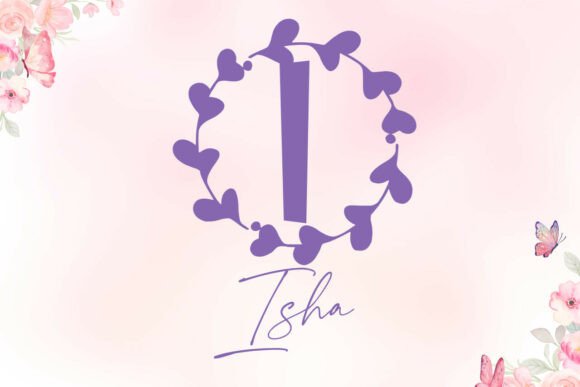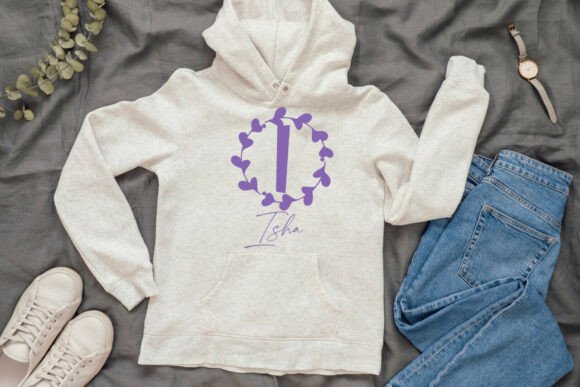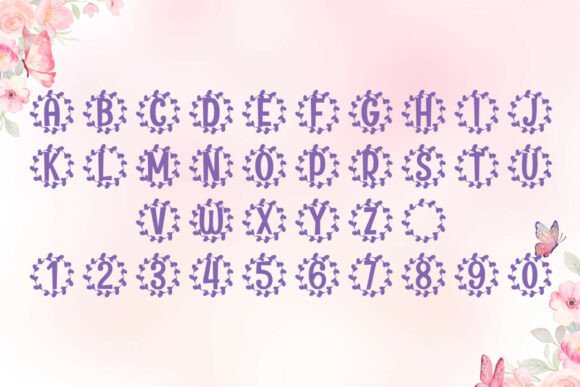
Introducing Fleuric Monogram Font: Elevate Your Designs with Elegant Botanical Marks
In the world of design, a monogram font can make all the difference in creating a lasting impression. Fleuric Monogram Font is a stunning addition to any designer’s toolkit, turning initials into beautiful, graceful botanical marks. With its poised stems and curves, open spacing, and elegant aesthetic, Fleuric is perfect for wedding suites, boutique logos, keepsake gifts, and premium packaging.
The Beauty of Fleuric Monogram Font
Fleuric’s unique design combines the sophistication of botanical elements with the simplicity of monograms. The font’s stems and curves are carefully crafted to exude poise and elegance, making it ideal for designs that require a touch of refinement. The open spacing ensures that even tiny tags remain clear and legible, allowing you to use Fleuric in a variety of applications, from small jewelry cards to large venue signage.
One of the standout features of Fleuric Monogram Font is its versatility. You can use it to create a wide range of designs, including:
• Wedding suites: Add a touch of elegance to your wedding invitations, stationery, and decorations with Fleuric’s beautiful monograms.
• Boutique logos: Create a lasting impression with a custom logo that showcases your brand’s unique personality.
• Keepsake gifts: Make your gifts extra special with beautifully designed monograms that will be treasured for years to come.
• Premium packaging: Elevate your packaging with Fleuric’s sophisticated monograms, perfect for luxury brands and high-end products.
Pairing Fleuric with Other Fonts
Fleuric Monogram Font pairs beautifully with soft serifs and modern sans fonts, allowing you to create refined and polished compositions with ease. The font’s elegant aesthetic complements a wide range of typography styles, making it easy to incorporate into your existing design workflow.
Designing with Fleuric
Using Fleuric Monogram Font is incredibly easy, even for those new to design. The font shines in a variety of applications, including:
• Logos and seals: Set single, double, or triple initials for a professional and polished look.
• Laurel rings and oval borders: Frame your monograms with beautiful laurel rings or oval borders for added elegance.
• Fine rules: Add a touch of sophistication with fine rules that complement Fleuric’s elegant aesthetic.
Scalability and Versatility
Fleuric Monogram Font scales effortlessly from small jewelry cards to large venue signage, making it a versatile addition to your design toolkit. Whether you’re designing for print or digital applications, Fleuric’s smooth curves and elegant aesthetic ensure that your designs look stunning in any context.
Perfect for Crafters and Designers
Fleuric Monogram Font is a perfect fit for crafters and designers who want to create beautiful, professional-looking designs without spending hours on end. The font’s ease of use, versatility, and elegant aesthetic make it an excellent choice for anyone looking to elevate their designs and create a lasting impression.
Whether you’re a seasoned designer or a crafter looking to add a touch of elegance to your creations, Fleuric Monogram Font is an excellent addition to your toolkit. With its beautiful botanical marks, poised stems and curves, and endless design possibilities, Fleuric is sure to become a favorite in your design arsenal.